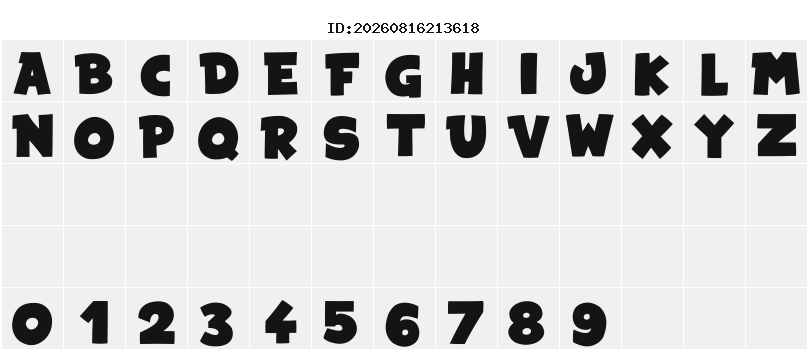
Space Comics Preview
• Designer: IMAGEX
About Space Comics.ttf
Space Comics.ttf is a modern, elegant sans-serif font designed for ultimate readability and visual harmony. Perfect for branding, headlines, web design, and print materials.